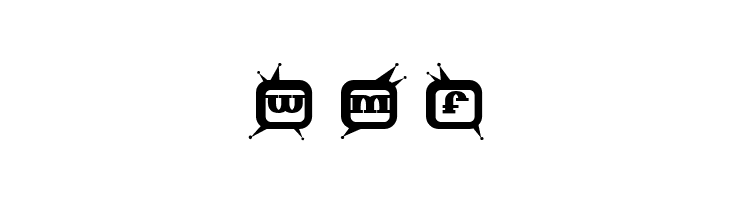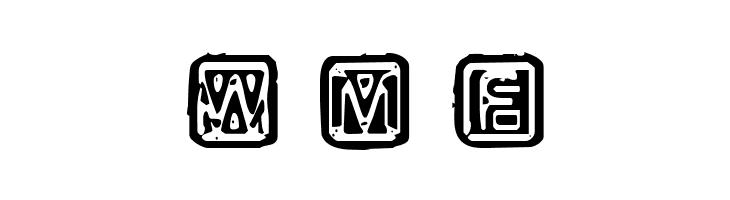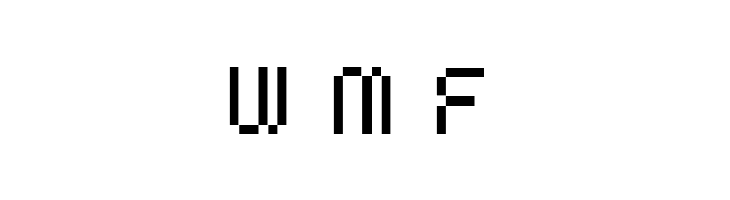
A bold, decorative font with characters in rounded squares and star-like embellishments.
A bold, playful font with strong outlines and a cartoon-like appearance.
( Fonts by Astigmatic One Eye Typographic Institute - Brian J. Bonislawsky - astigmatic.com )
A bold, brush-like font with dynamic, hand-painted strokes.
( Fonts by Mr Fisk - Mike Larsson - fontorama.net )
A futuristic, monospaced font with a digital, circuit-like design.